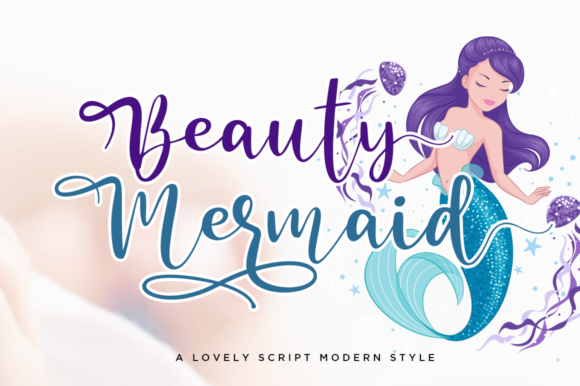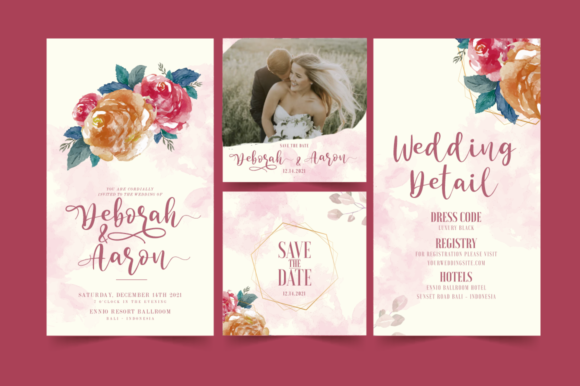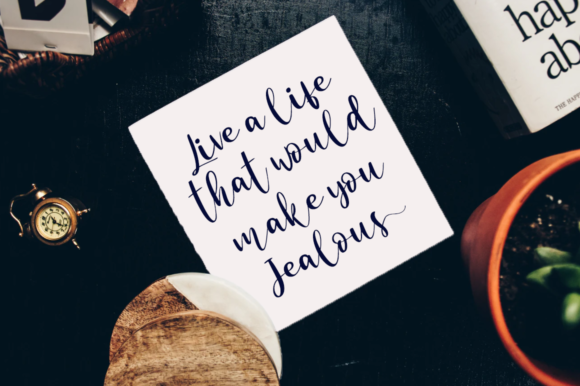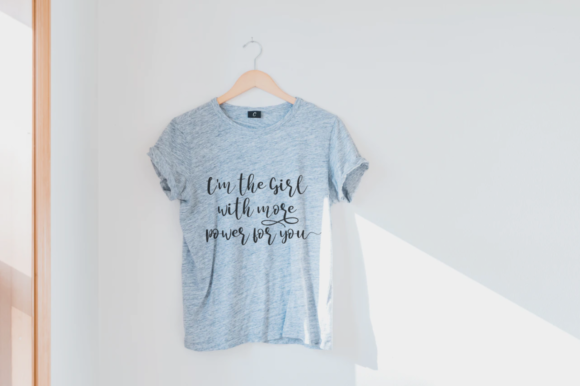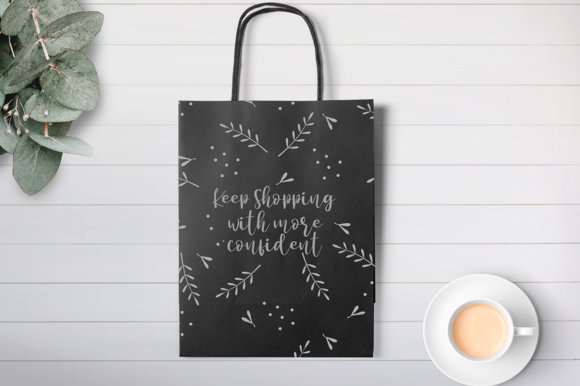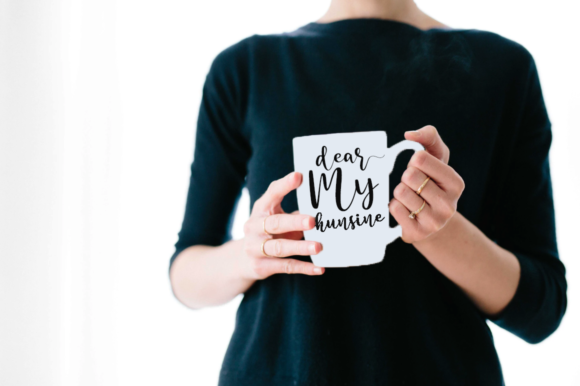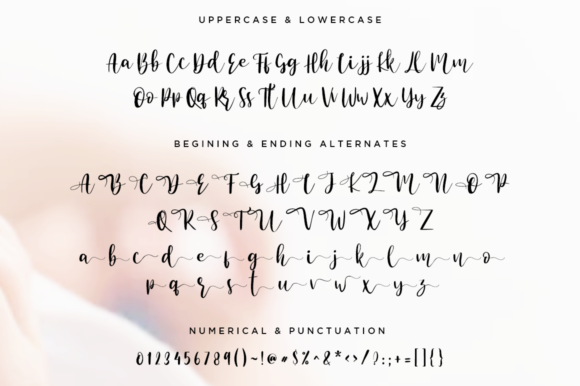
Beauty Mermaid Font
About Beauty Mermaid Font
Beauty Mermaid is an equally playful and charming handwritten font. It is PUA encoded which means you can access all of the glyphs and swashes with ease! It features a varying baseline, smooth lines, gorgeous glyphs and stunning alternates.